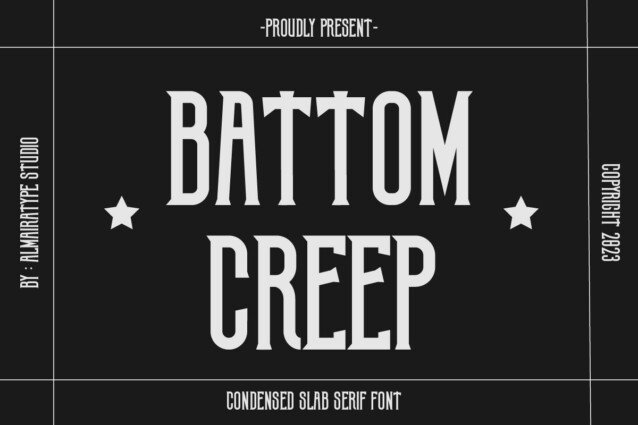
Battom Creep Font
Battom Creep Font is a cool and sporty serif Football font. Battom Creep is suitable for printing, t-shirts, jersey numbers, branding, sports products, headlines, advertisements, posters, flyers, events, labels, logos, crafts, SVG quotes, slogans, web, traditional media. Great for Crafters and Graphic Artists. and this font is also suitable for Etsy’s needs. It is very suitable for creative projects because this font is also compatible with tools such as Photoshop and Silhouette Design Studio.